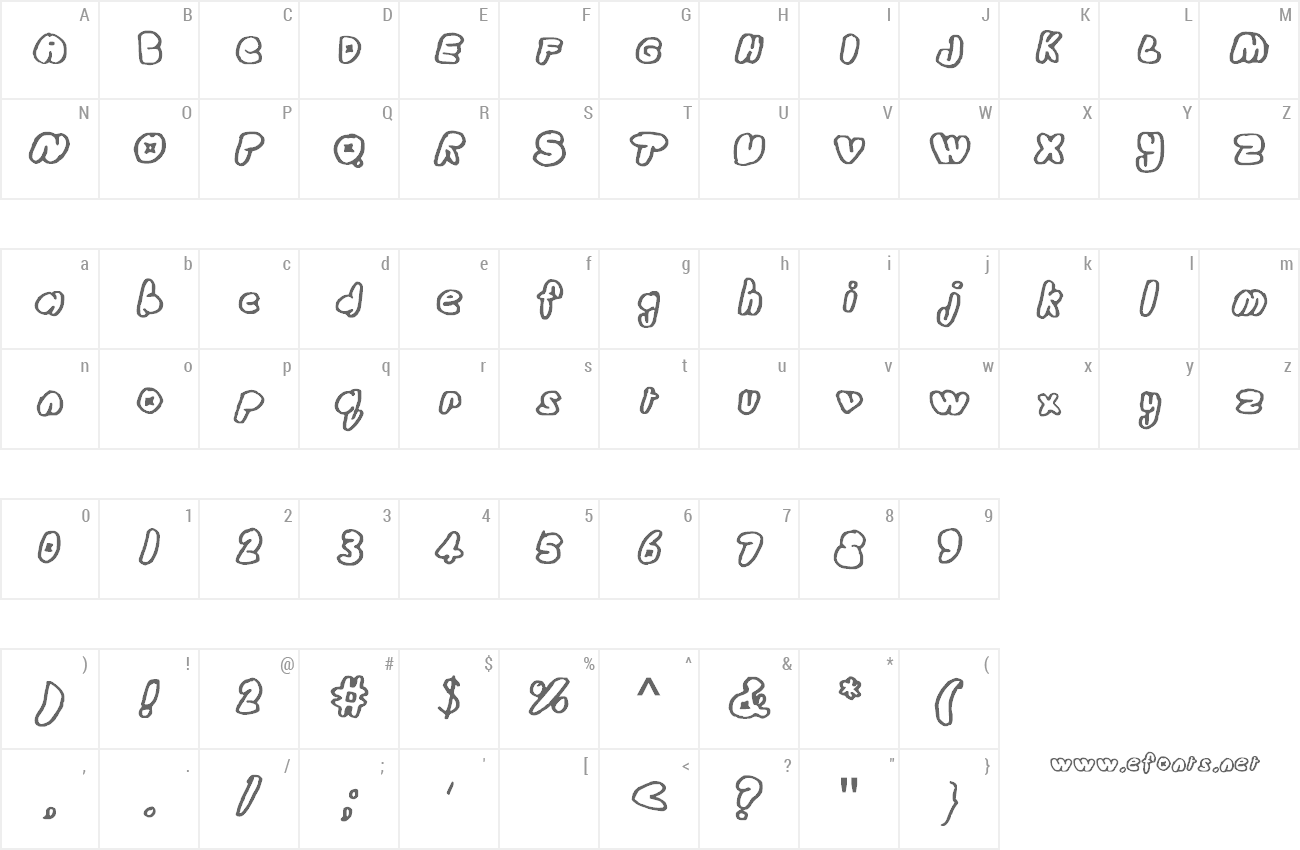
Preview and download WubDub Font. Created by Kerem Ali Kaynak in Fancy Cartoon styles with Free for personal use license.
| Font name: | WubDub |
| Author: | Kerem Ali Kaynak |
| Note by Kerem Ali Kaynak | |
| This is a very cool cartoony font.I worked on it for months to make it look like cartoony but handwritten.This is a blue-tag font so it is 3.99$ for commercial use.Contact me for anything you want to ask. |